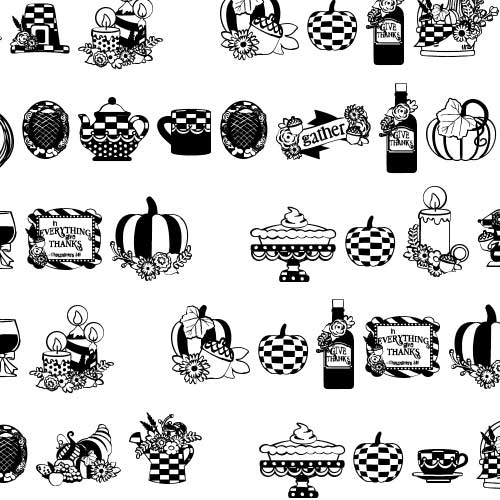
DB Charmingly Chic - DB
This fun doodlebat font features 26 chic fall and Thanksgiving inspired designs. Perfect for cards, crafts, gifts, planner stickers, classrooms, scrapbook pages and more!